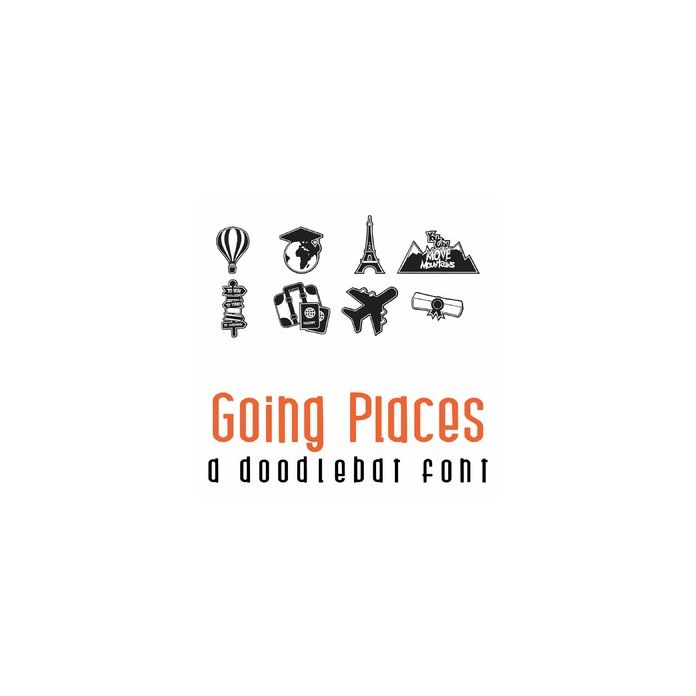
This fun doodlebat font features 26 fun graduation and travel icons. Perfect for cards, gifts, decor, crafts, scrap book pages, planner stickers and more!